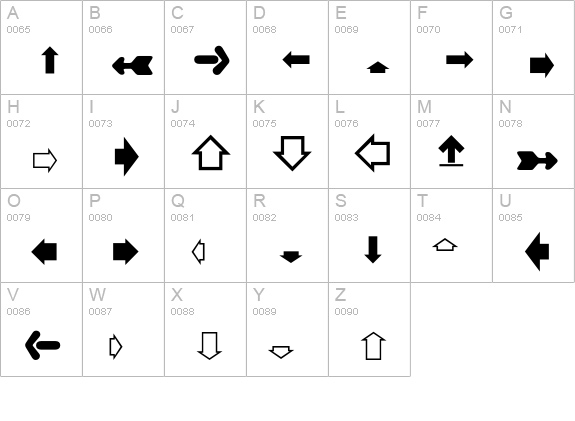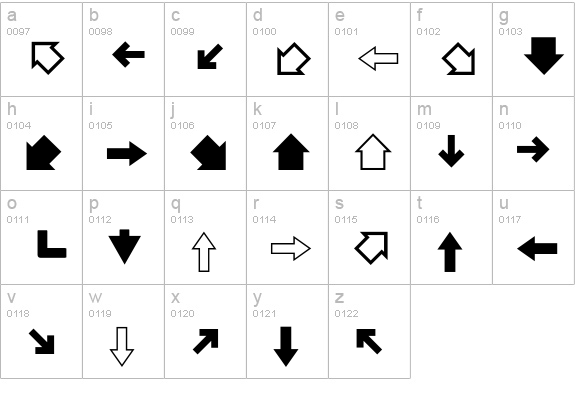
GeneralSymbolsP01 Font Details
GeneralSymbolsP01 font is a versatile and elegant typeface that offers a wide range of symbols for various design projects. This font is perfect for adding a touch of sophistication and uniqueness to your work. From arrows to shapes to mathematical symbols, GeneralSymbolsP01 has everything you need to enhance your designs. What's even better is that this font is completely free to download! You can easily access GeneralSymbolsP01 at FontsMarket.com and start using it in your projects right away. With its clean lines and modern aesthetic, GeneralSymbolsP01 is sure to elevate your designs and make them stand out. Download this font today and unleash your creativity!